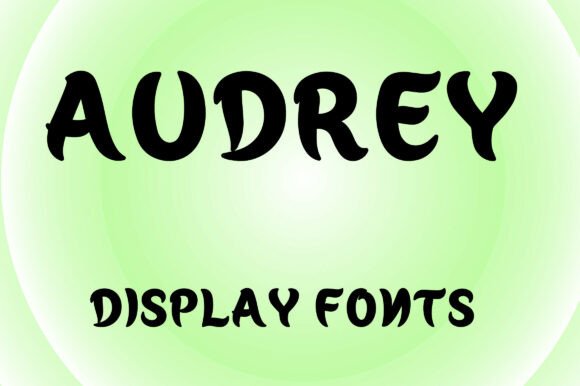
The Audrey Font: A Playful and Artistic Addition to Your Design Toolkit
I’ll never forget the design project that led me to discover the Audrey font. I was working on a branding project for a children’s play center, and I needed a font that was both fun and sophisticated. After hours of scouring font websites and trying out different fonts, I stumbled upon Audrey. Its bold, playful, and artistic vibe immediately caught my attention, and I knew I had found the perfect fit.
An Honest Review of Audrey Font
What I Love About Audrey Font
- ✨ Unique and playful style: Audrey font has a one-of-a-kind, handcrafted look that’s perfect for designs that need a personal touch.
- ✅ High legibility: Despite its bold and artistic style, Audrey font is surprisingly easy to read, even at smaller sizes.
- ✅ Versatile: Audrey font is suitable for a wide range of design projects, from logos and branding to posters, packaging, and social media graphics.
While Audrey font is an excellent choice for many design projects, it’s not without its limitations. Here are a few things to keep in mind:
- ⚠️ Limited character set: Audrey font only includes uppercase letters A-Z and numbers 0-9, which may limit its use for certain projects.
- 🤔 Not suitable for body text: Due to its bold and artistic style, Audrey font is best used for headlines, titles, and short paragraphs.
The Story Behind Audrey Font
Audrey font was designed with the intention of creating a bold, playful, and artistic font that’s perfect for designs that need a personal touch. The designer aimed to create a font that’s both fun and sophisticated, making it suitable for a wide range of design projects.
Q: What is the Audrey font best used for?
A: Audrey font is best used for designs that need a bold, playful, and artistic touch, such as logos, branding, posters, packaging, and social media graphics.
Q: Is Audrey font suitable for body text?
A: No, Audrey font is best used for headlines, titles, and short paragraphs. It’s not suitable for body text due to its bold and artistic style.
Q: Is Audrey font available in different styles or weights?
A: Currently, Audrey font is only available in one style, but its bold and artistic style makes it versatile enough to be used for a wide range of design projects.